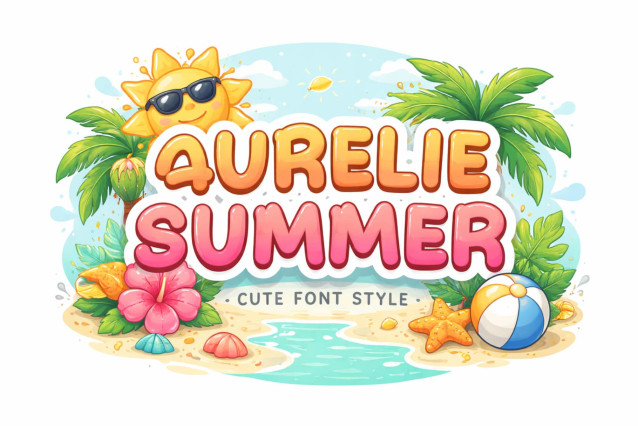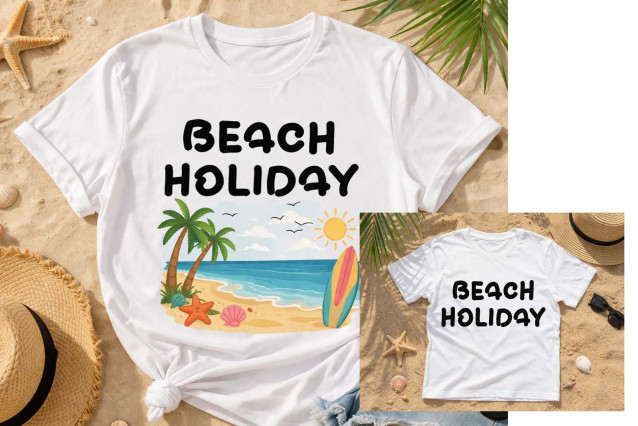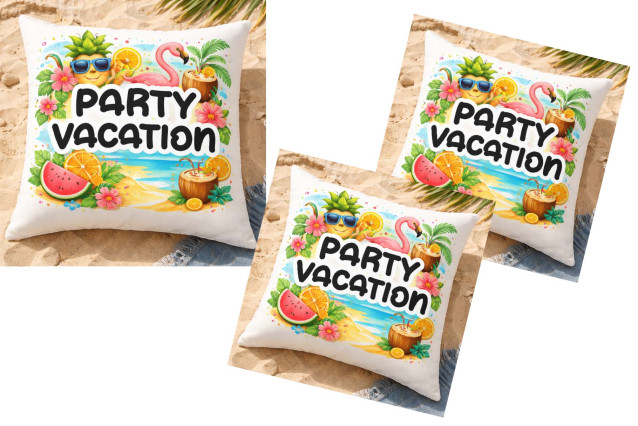
Aurelie Summer Font
“Aurelie Summer” is a unique and elegant display font. It features uppercase and lowercase letters, numerals, punctuations, and multilingual support. It’s perfect for summer, holidays, vacations, prints, spring, Easter, Teacher’s Day, Mother’s Day, t-shirts, bags, comics, cartoons, Christmas, logos, stickers, coloring books, and more.